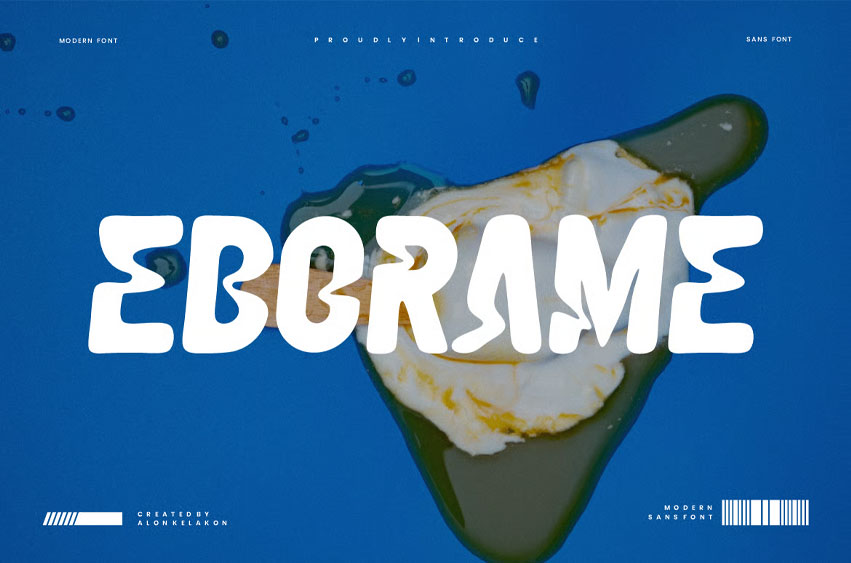
Eborame Font
Eborame Font is unique. Ready to use for your design like labeling, movie sceen, poster, movie title, gigs, album covers, logos, and much more.